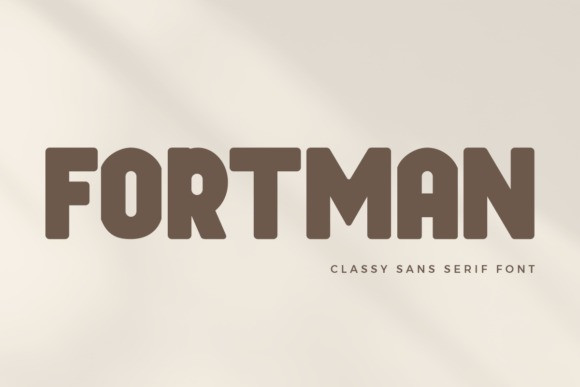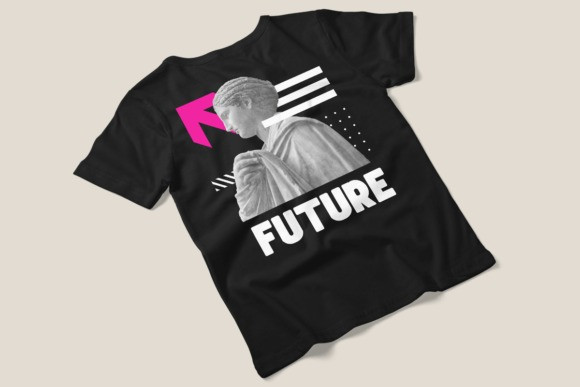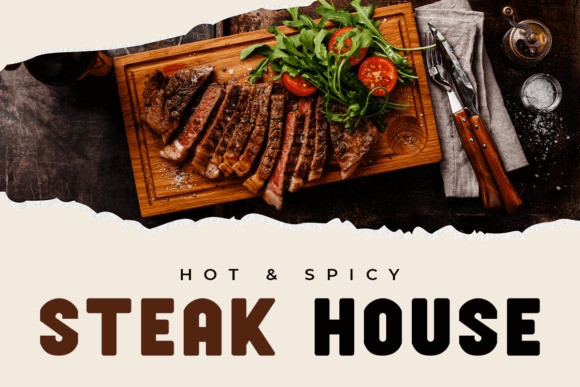
Fortman Font
Fortman is a casual, friendly, and easily read typeface. Use it to create anything from a logo to a social media post, and you’re sure to stand out!